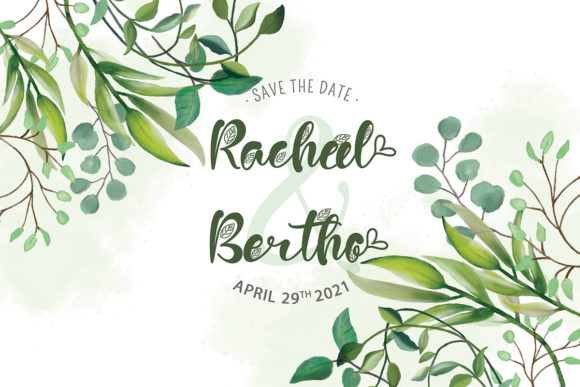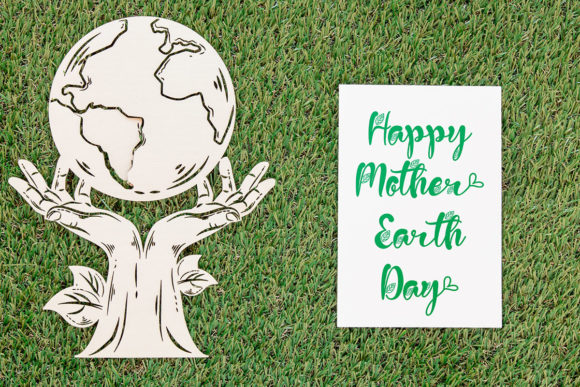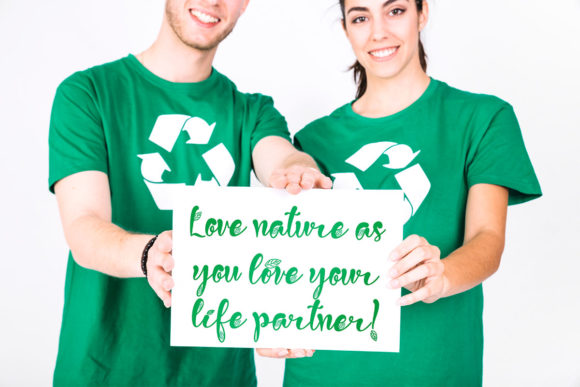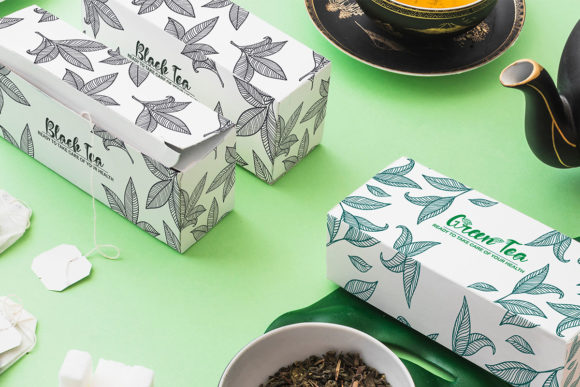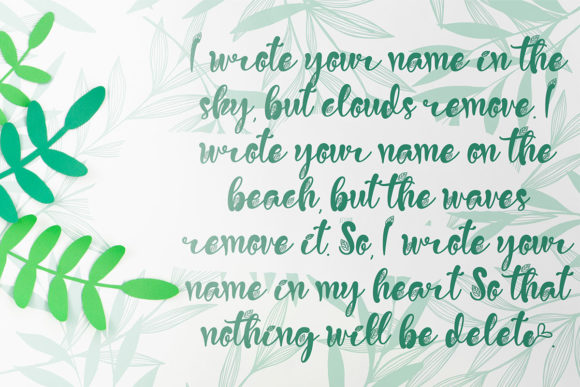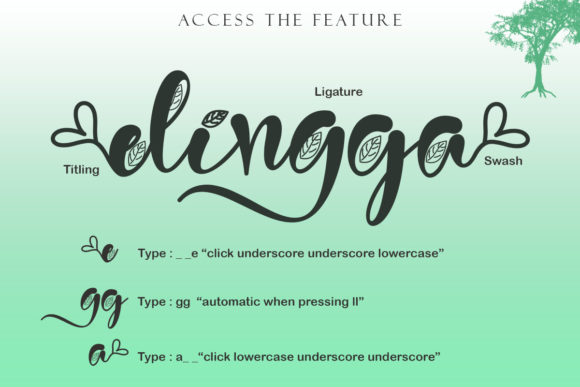
Introducing Green Love Font: The Ultimate Romantic Calligraphy Typeface
Are you a designer or crafter looking for a font that exudes romance and sweetness? Look no further than Green Love Font, a beautiful calligraphy typeface that is sure to capture the hearts of your audience. In this article, we’ll dive into the features and benefits of Green Love Font, and explore how it can elevate your design projects.
What is Green Love Font?
Green Love Font is a romantic and sweet calligraphy typeface that features characters that dance along the baseline, creating a whimsical and playful feel. This font is perfect for designs that require a touch of elegance and sophistication, such as wedding invitations, Valentine’s Day cards, and other romantic-themed projects.
One of the standout features of Green Love Font is its PUA (Private Use Area) encoding. This means that you can access all of the glyphs and swashes with ease, giving you maximum flexibility and creative control over your designs. With PUA encoding, you can easily insert special characters, ligatures, and swashes into your text, making it easy to create beautiful and unique designs.
Features of Green Love Font
- Romantic and sweet calligraphy style: Green Love Font features a beautiful, flowing script that is perfect for romantic-themed designs.
- PUA encoded: Easy access to glyphs and swashes for maximum creative control.
- Characters that dance along the baseline: Creates a whimsical and playful feel that’s perfect for designs that require a touch of elegance.
- Perfect for a variety of design projects: Wedding invitations, Valentine’s Day cards, and other romantic-themed projects.
Benefits of Using Green Love Font
So why choose Green Love Font for your design projects? Here are just a few benefits of using this beautiful font:
- Add a touch of romance and elegance: Green Love Font is perfect for designs that require a touch of sophistication and whimsy.
- Stand out from the crowd: With its unique and beautiful calligraphy style, Green Love Font is sure to make your designs stand out.
- Easily create unique designs: With PUA encoding, you can easily access glyphs and swashes to create one-of-a-kind designs.
- Perfect for crafters and designers: Green Love Font is a versatile font that can be used for a variety of design projects, from digital files to handmade crafts.
Tips for Using Green Love Font
Here are a few tips for getting the most out of Green Love Font:
- Use it for romantic-themed designs: Green Love Font is perfect for wedding invitations, Valentine’s Day cards, and other romantic-themed projects.
- Experiment with different colors and textures: Green Love Font looks beautiful in a variety of colors and textures, so don’t be afraid to get creative.
- Pair it with other fonts: Green Love Font pairs beautifully with other fonts, so try pairing it with a bold or serif font for added contrast.
Green Love Font is a beautiful and romantic calligraphy typeface that is sure to capture the hearts of your audience. With its PUA encoding and whimsical design, it’s perfect for designers and crafters looking to add a touch of elegance and sophistication to their projects. Whether you’re creating wedding invitations, Valentine’s Day cards, or other romantic-themed designs, Green Love Font is the perfect choice.